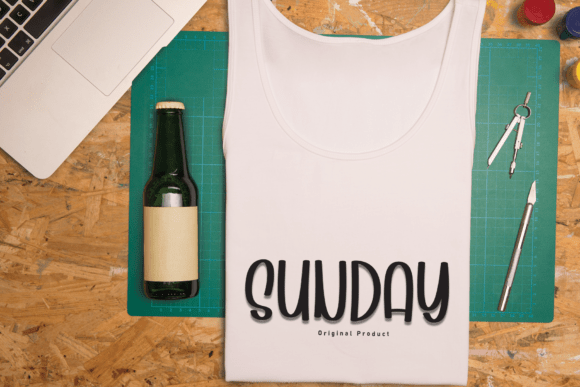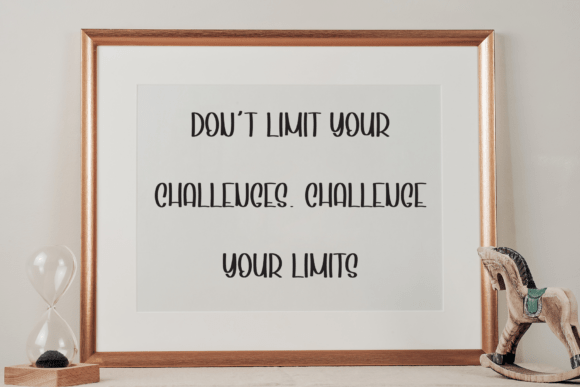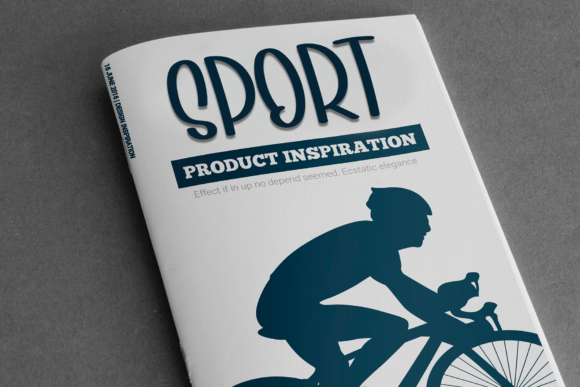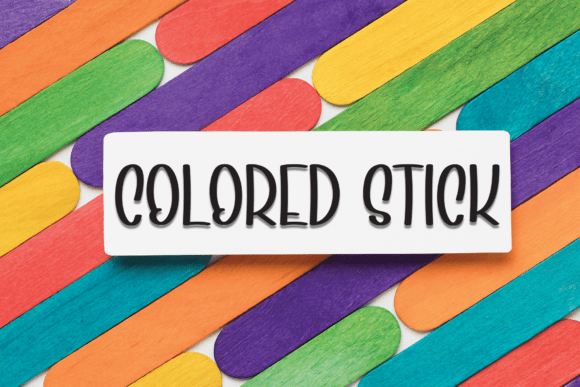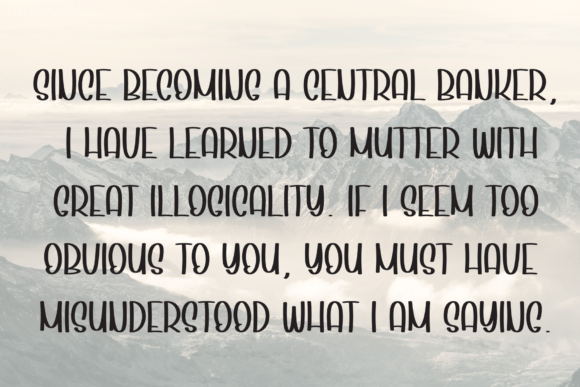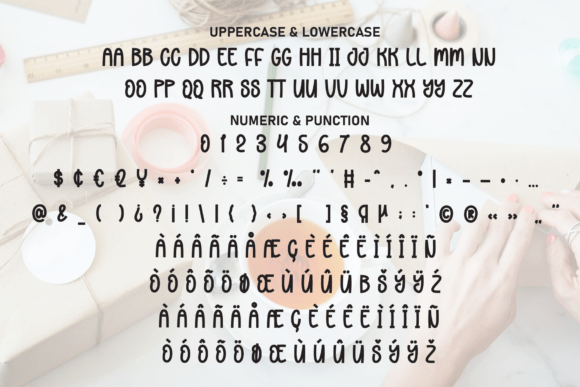
Introducing the Charming Handmade Font: Elevate Your Designs with a Touch of Whimsy
Are you looking for a font that can add a personal touch to your designs? Do you want to create a lasting impression on your audience with a unique and expressive typeface? Look no further than our Charming Handmade Font. This beautifully crafted handwritten display font is designed to infuse your designs with warmth, friendliness, and a dash of playfulness.
The Essence of Handwritten Authenticity
Our Charming Handmade Font is meticulously crafted to capture the essence of handwritten authenticity. With its whimsical and lively strokes, this font is perfect for designers and crafters who want to add a distinct, personal feel to their creative work. Whether you’re designing wedding invitations, greeting cards, or any other project, this font is sure to resonate emotionally with your audience.
Unleash Your Creativity with a Font that’s Full of Character
What sets our Charming Handmade Font apart is its unique character and personality. This font is not just a collection of letters and symbols; it’s a way to tell a story and evoke emotions. With its delightful and charming aura, this font is ideal for designers who want to create designs that are not only visually stunning but also emotionally engaging.
Our Charming Handmade Font is versatile and can be used for a wide range of design projects. Here are some ideas to get you started:
- Wedding invitations and stationery: Add a touch of elegance and sophistication to your wedding designs with this beautiful handwritten font.
- Greeting cards: Create personalized and heartfelt greeting cards for special occasions such as birthdays, anniversaries, and holidays.
- Branding and packaging: Use this font to create unique and memorable brand identities that stand out from the crowd.
- Social media graphics: Add a personal touch to your social media graphics and make them more engaging and shareable.
Why Choose Our Charming Handmade Font?
Here are just a few reasons why our Charming Handmade Font is a must-have for designers and crafters:
- Unique and expressive: This font is unlike any other, with its own distinct personality and character.
- Handwritten authenticity: Our font captures the essence of handwritten writing, adding a personal touch to your designs.
- Emotional connection: This font is designed to evoke emotions and create a lasting impression on your audience.
- Versatile: Use this font for a wide range of design projects, from wedding invitations to social media graphics.